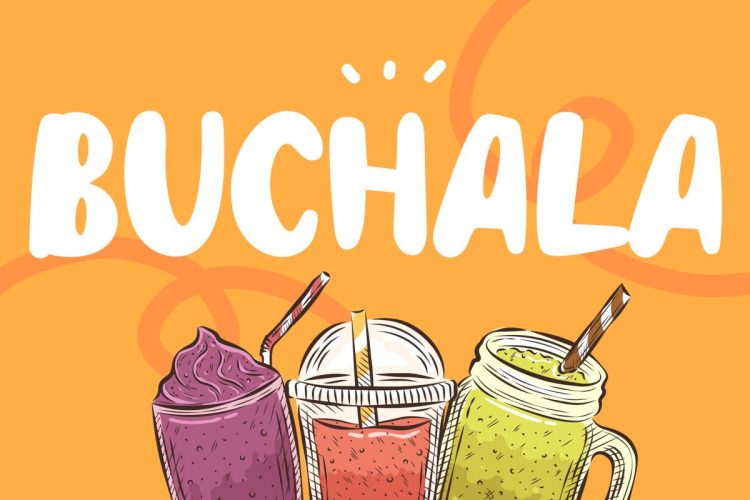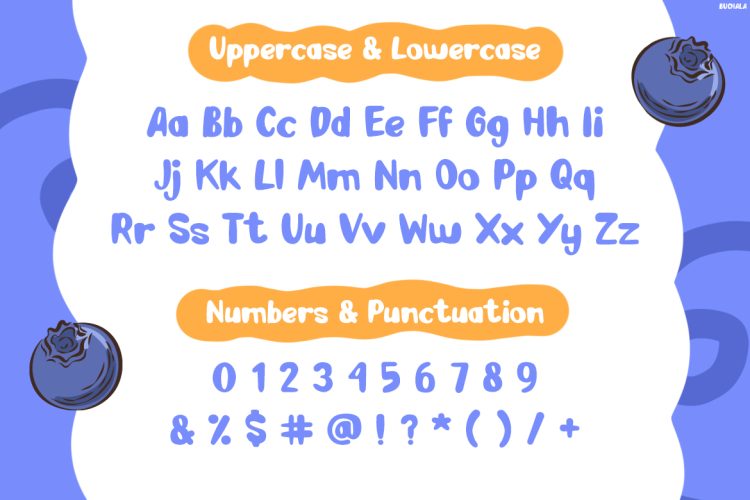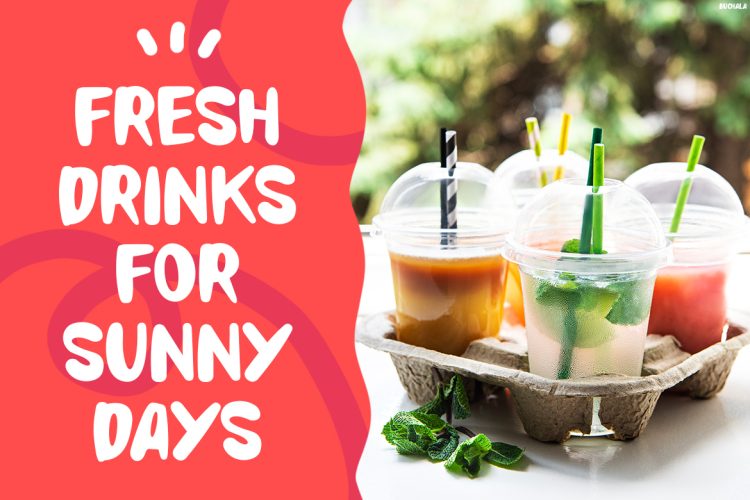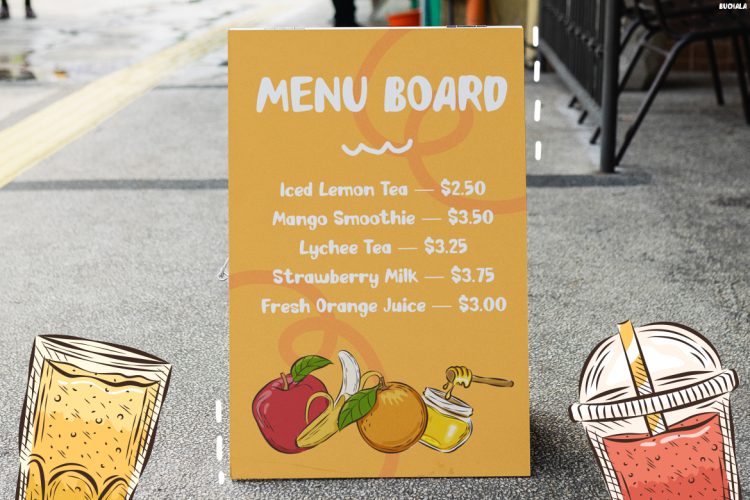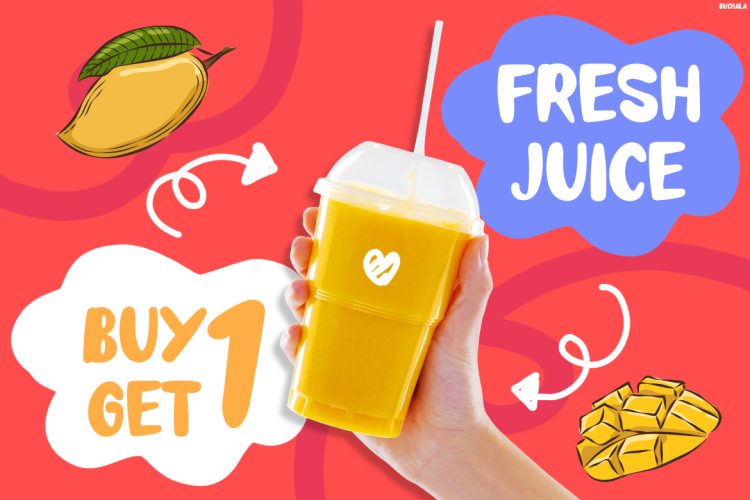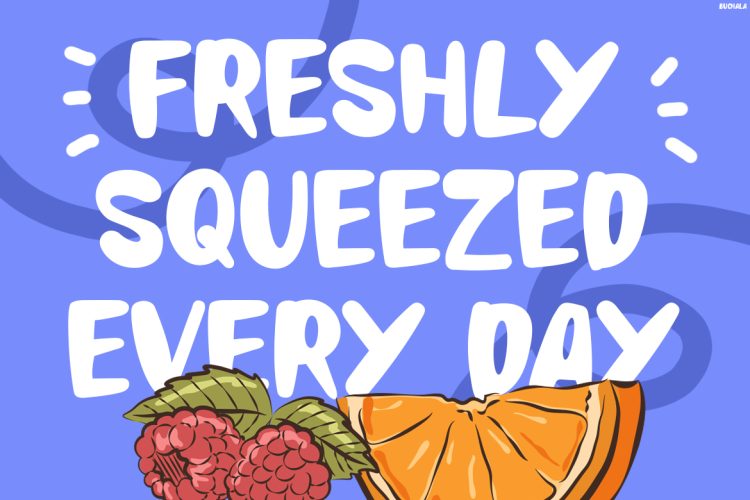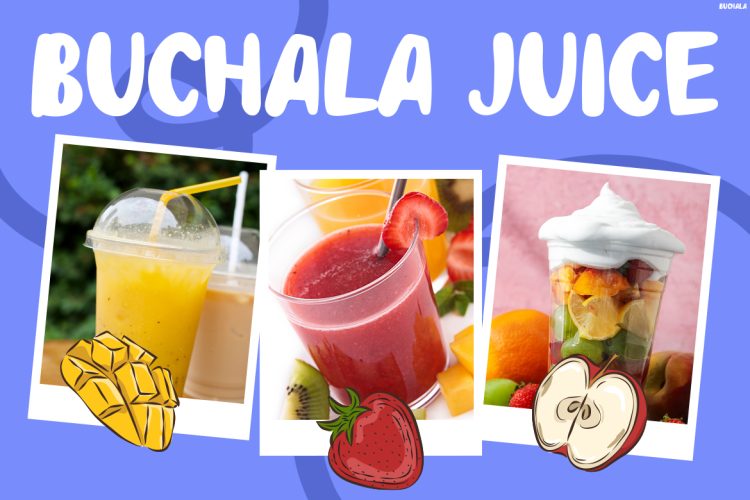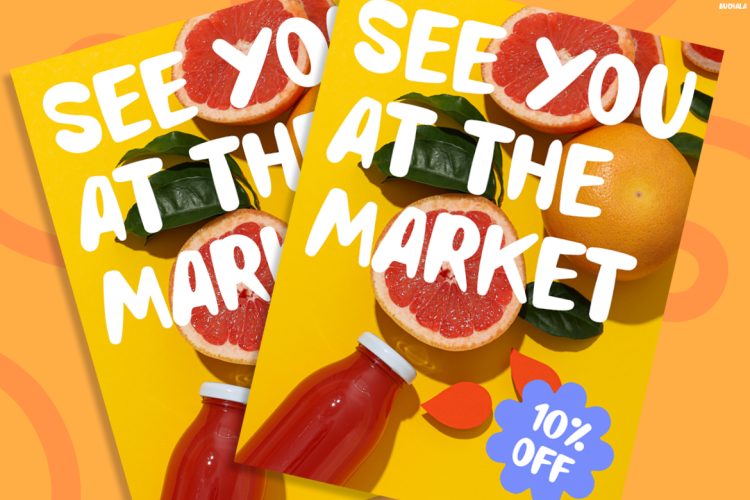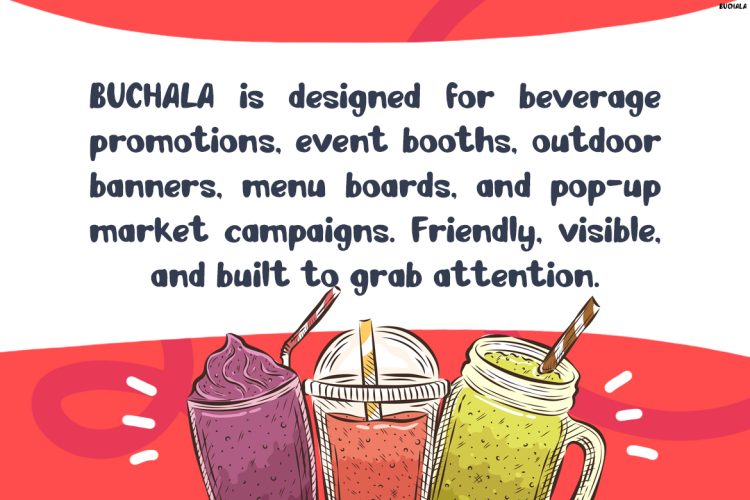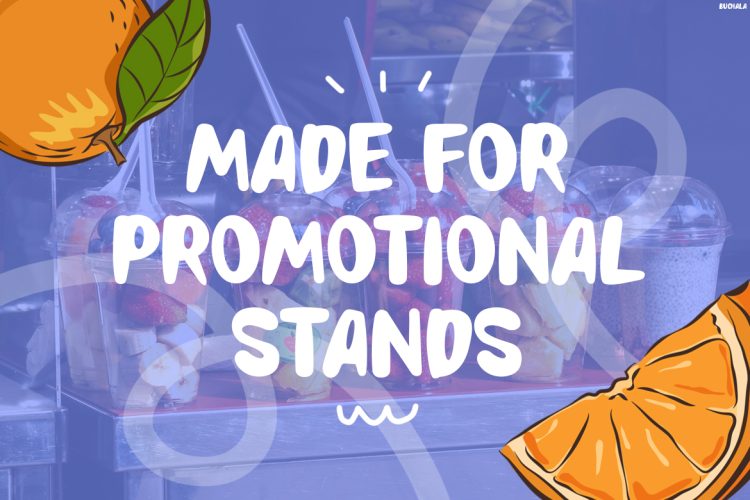
Kids Font Buchala โ Juicy Display Font Bursting with Fresh Fun
Kids Font Buchala is a bold and playful display font designed to bring fresh energy and colorful personality into every design. With its chunky hand-drawn letterforms, cheerful curves, and fun beverage-inspired aesthetic, this font instantly creates a bright and eye-catching visual atmosphere. Moreover, the lively character shapes make every headline feel more energetic, friendly, and memorable. In addition, the bold typography keeps your text highly readable, so your message stands out across menus, packaging, posters, and social media graphics. Because of its vibrant and youthful style, Kids Font Buchala works perfectly for juice branding, drink promotions, food campaigns, and fun marketing materials. Furthermore, the playful design adds excitement to every layout. At the same time, the colorful visual charm helps your branding feel fresh, modern, and approachable.
Why Kids Font Buchala Stands Out
Buchala combines playful handwritten typography with juicy promotional energy. As a result, every word feels fun, refreshing, and full of character. Not only does the font create strong visual impact, but it also enhances branding with its cheerful and expressive style. Additionally, the chunky letterforms make headlines pop instantly. Meanwhile, the friendly shapes keep designs feeling warm and inviting. Whether you are creating beverage packaging, menu boards, market promotions, or social media campaigns, this font helps every project feel more vibrant and engaging. Likewise, the playful aesthetic connects easily with family-friendly and youth-oriented audiences.
- Juice and beverage branding
- Kids food packaging
- Menu boards
- Cafรฉ promotions
- Farmers market campaigns
- Social media graphics
- Product packaging
- Promotional stands
- Event posters
- Fun advertising materials
Make Your Designs Feel Extra Fresh